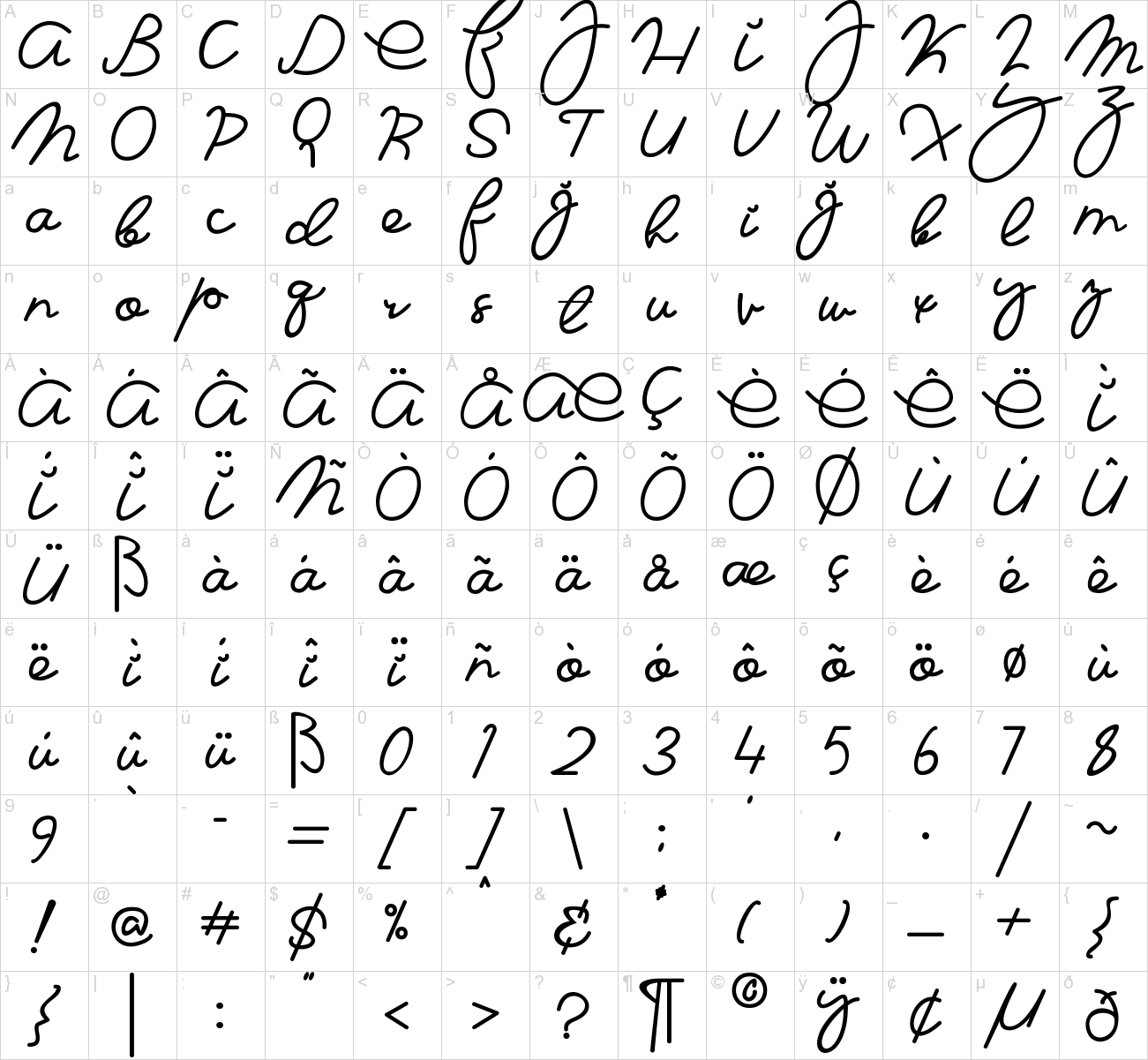
Ma Fille
Ma Fille Handwritten Font
Ma Fille – A cute handwriting font script with playful shapes, this font inspired by love, hope and desire.
Ma Fille font as possible by including over 55 ligatures.